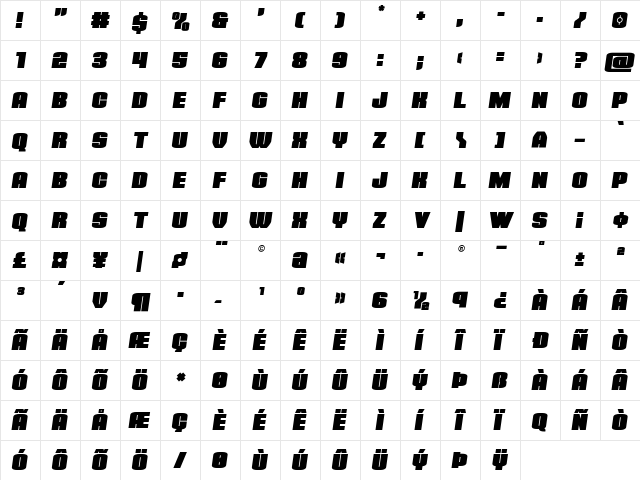
Elephant Gun Semi-Italic Regular
Design Context for Elephant Gun Semi-Italic Typeface
Elephant Gun Semi-Italic offers clean, dependable letterforms without strong stylistic allegiance, making it a practical choice for designers who need flexibility. The dynamic lean of this cut emphasises speed and emphasis in any layout.
Pro Tip: Try Elephant Gun Semi-Italic for annotation and caption copy alongside an upright companion — the contrast in angle creates a dynamic but ordered typographic system.